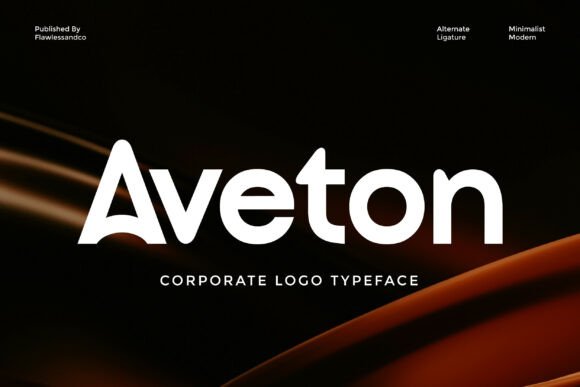
I still remember the frustration of working on a branding project for a sleek tech startup. My client wanted a font that exuded professionalism, innovation, and a touch of sophistication. I spent hours scouring the internet for the perfect typeface, only to come up empty-handed. That was until I stumbled upon Aveton Font. ✨
Aveton is a modern sans serif typeface specifically crafted for professional brand identities and sleek corporate logo design. Its clean structure, smooth curves, and minimalistic form create a bold yet sophisticated visual impact. In this article, I’ll share my experience with Aveton, its features, and how to make the most of it in your designs.
An Honest Review of Aveton Font
• ✨ Clean and modern design: Aveton’s sleek lines and curves make it perfect for contemporary brands.
• ✅ High legibility: The font’s clear structure ensures it remains readable even at small sizes.
• 💼 Versatility: Aveton works well for both headings and body text, making it a great addition to any brand’s typography.
• 🎨 Customization options: With OpenType features and stylistic alternates, you can tailor Aveton to fit your brand’s unique style.
While Aveton is an excellent font, it’s not without its quirks. ⚠️ Some users may find the font’s minimalist approach too plain for certain design applications. Additionally, the font’s sleek lines can make it challenging to use in designs that require a lot of ornamentation.
For instance, I once used Aveton for a luxury brand project, and while it looked stunning, I had to add some custom illustrations to give it a more premium feel. 🤔
A Practical Guide to Using Aveton Font
The Story Behind Aveton Font
Aveton was designed by a team of typographers who sought to create a modern sans serif font that embodies professionalism and sophistication. Inspired by the clean lines and curves of contemporary architecture, Aveton is the result of meticulous craftsmanship and attention to detail.
The design team drew inspiration from various sources, including modernist design movements and cutting-edge technology. Their goal was to create a font that would meet the needs of contemporary brands while standing the test of time.
Font Name Aveton Font
Author Flawless And Co
Q: What is Aveton Font best suited for?
A: Aveton Font is ideal for professional brand identities, corporate logo design, and any project that requires a modern, sophisticated look.
Q: Can I use Aveton for body text?
A: Yes, Aveton is legible and works well for body text, making it a great choice for lengthy content.
Q: Does Aveton support OpenType features?
A: Yes, Aveton supports OpenType features, including stylistic alternates, glyphs, and ligatures.